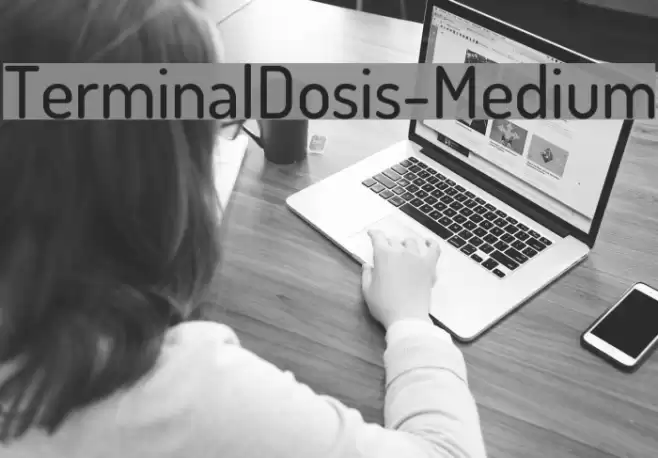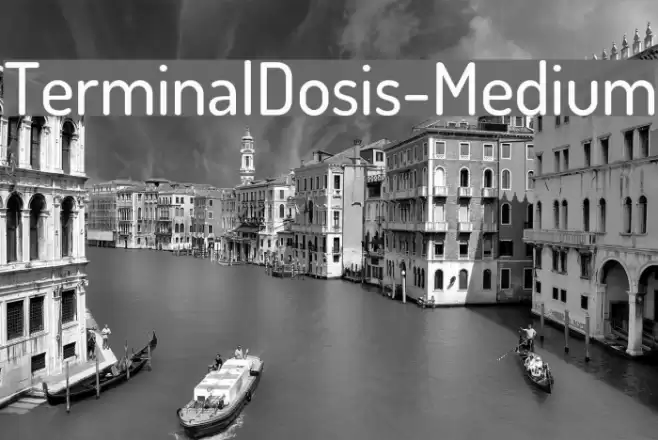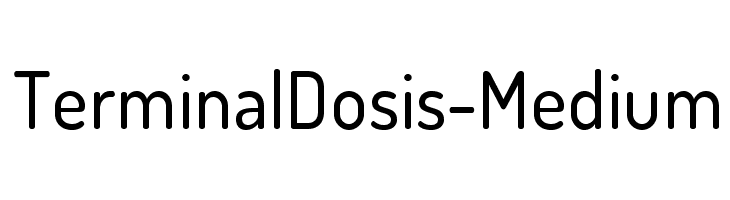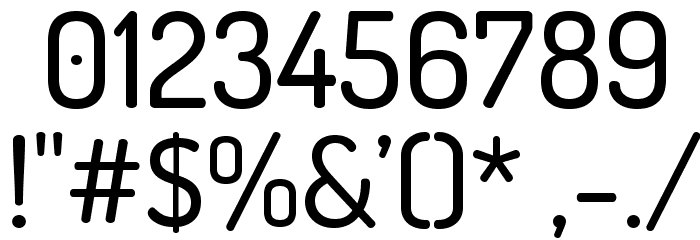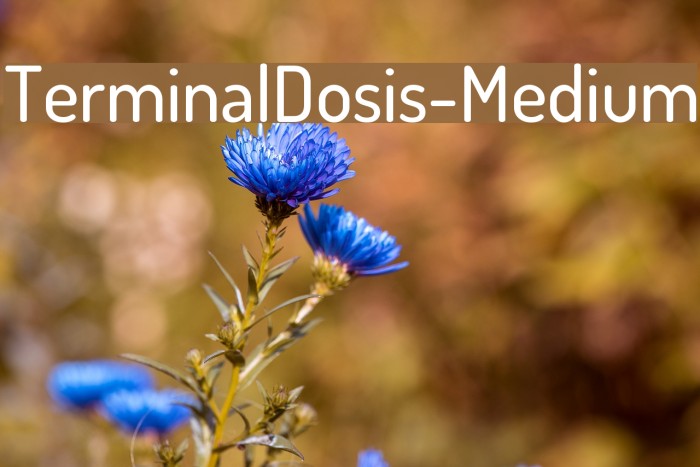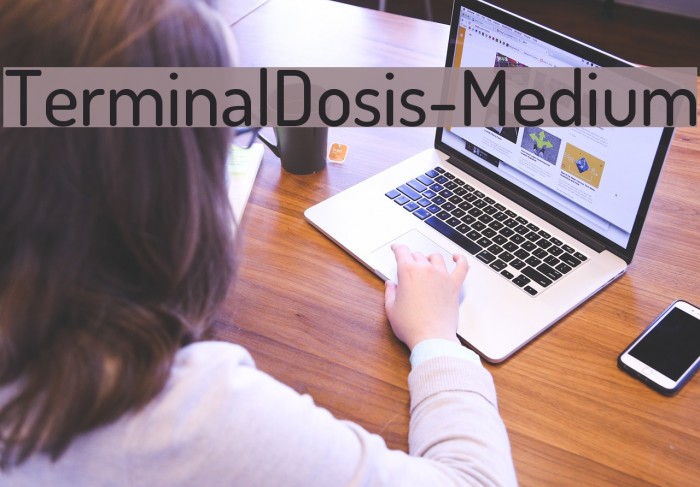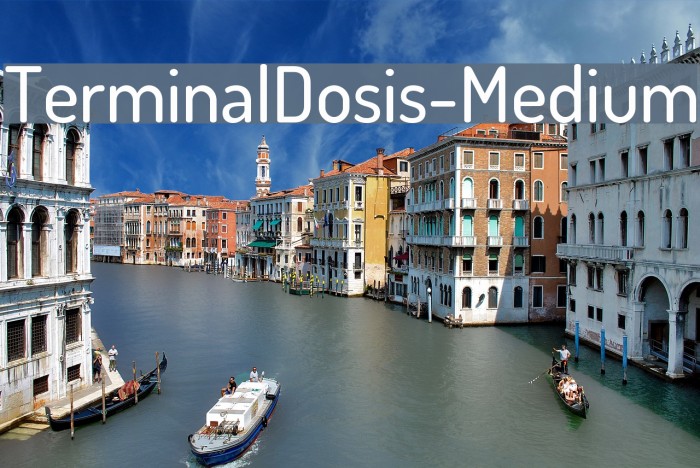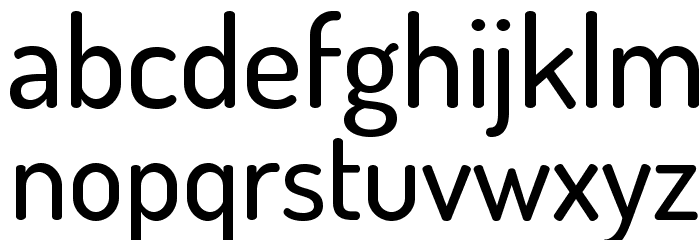
TerminalDosis-Medium
This font features a clean and modern sans-serif style with rounded edges, giving it a friendly and approachable appearance. The characters are evenly spaced, contributing to its readability and versatility. The uniform stroke width across all characters provides a consistent and harmonious look. The font includes a full set of uppercase and lowercase letters, numbers, and a variety of special characters, making it suitable for a wide range of applications. Its simplicity and clarity make it ideal for both digital and print media, ensuring legibility at various sizes.
A modern, rounded sans-serif font with consistent stroke width and excellent readability.
- Proposed Projects: Ideal for user interfaces, websites, mobile apps, branding, and advertising materials.